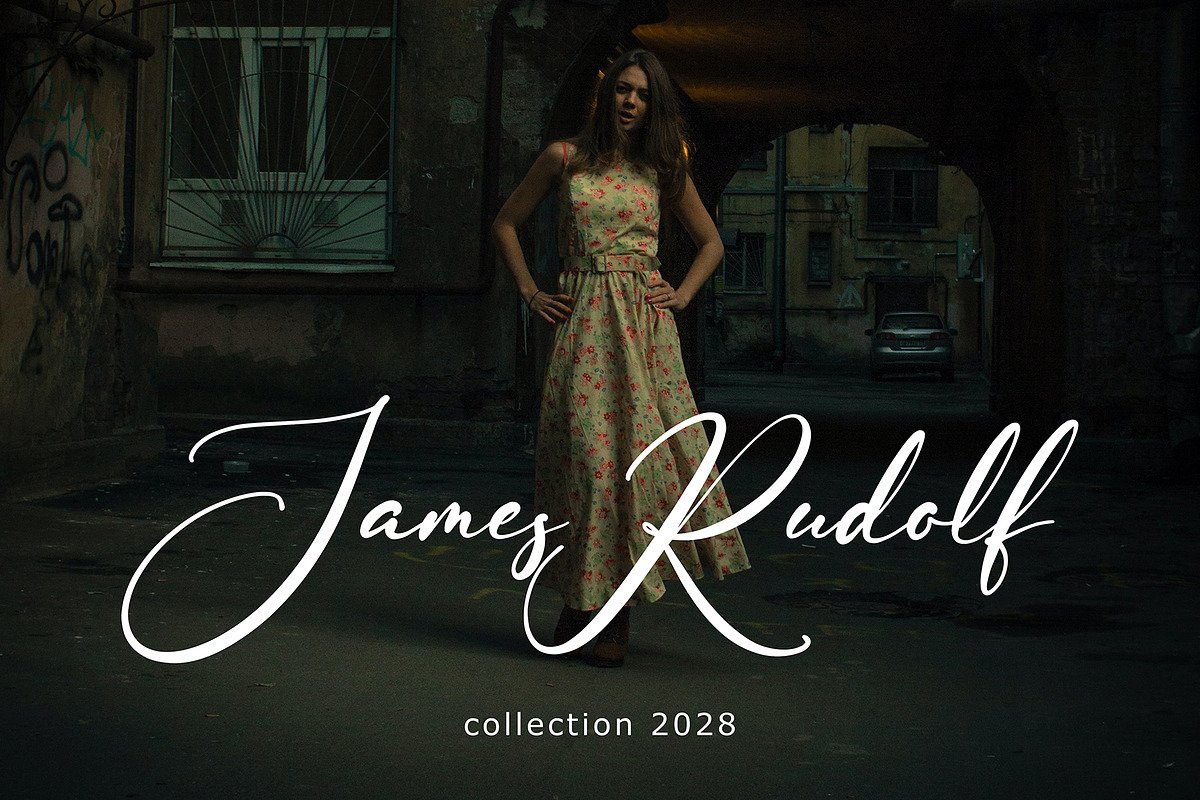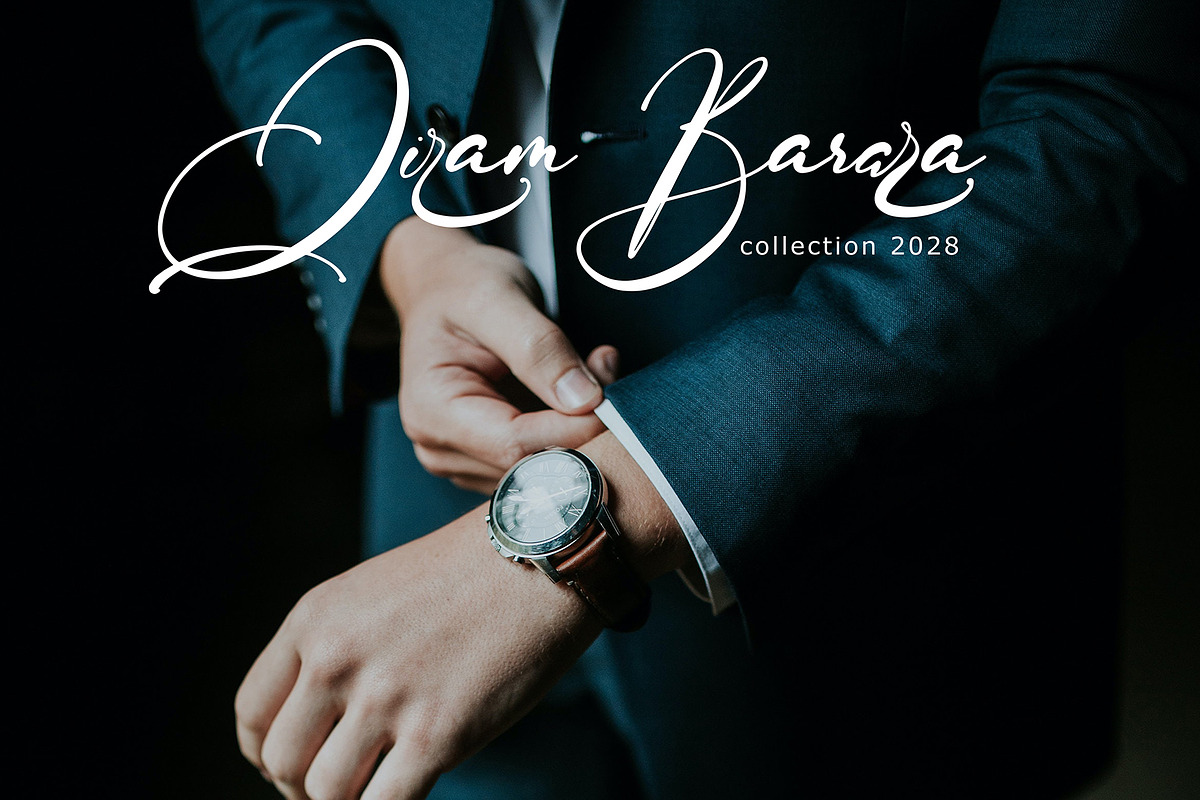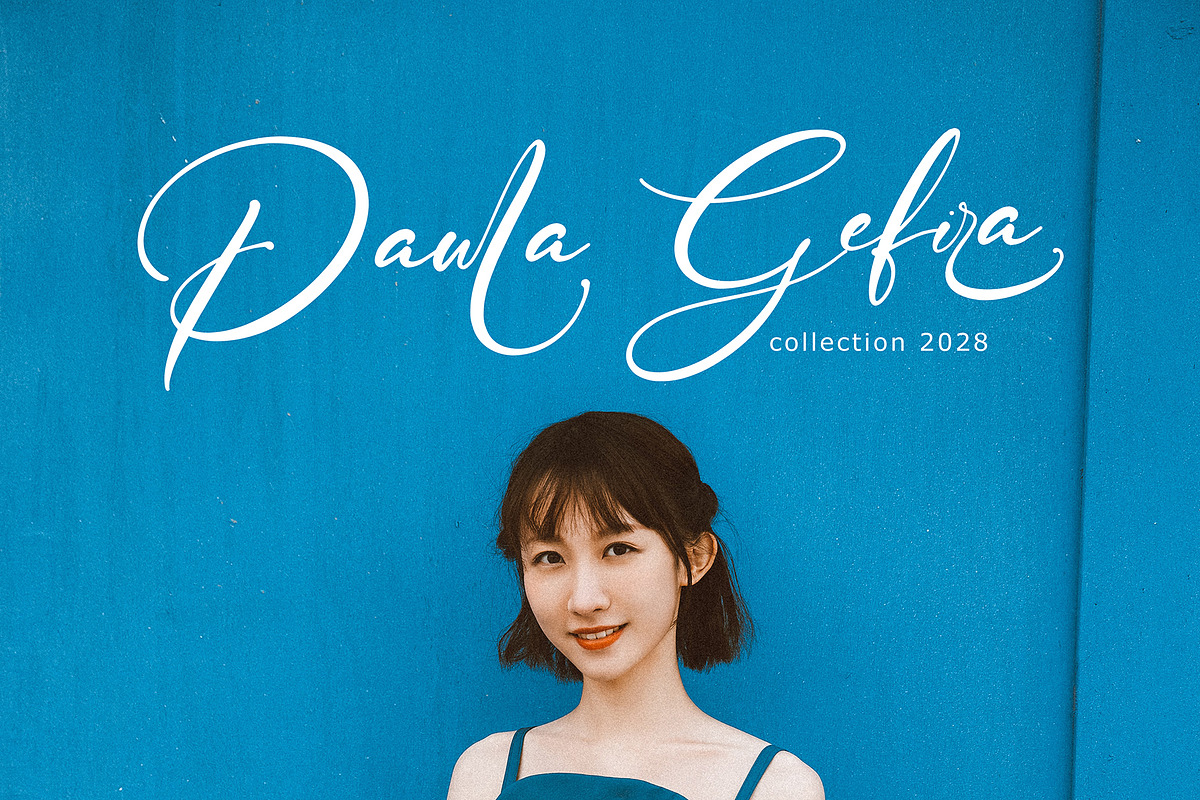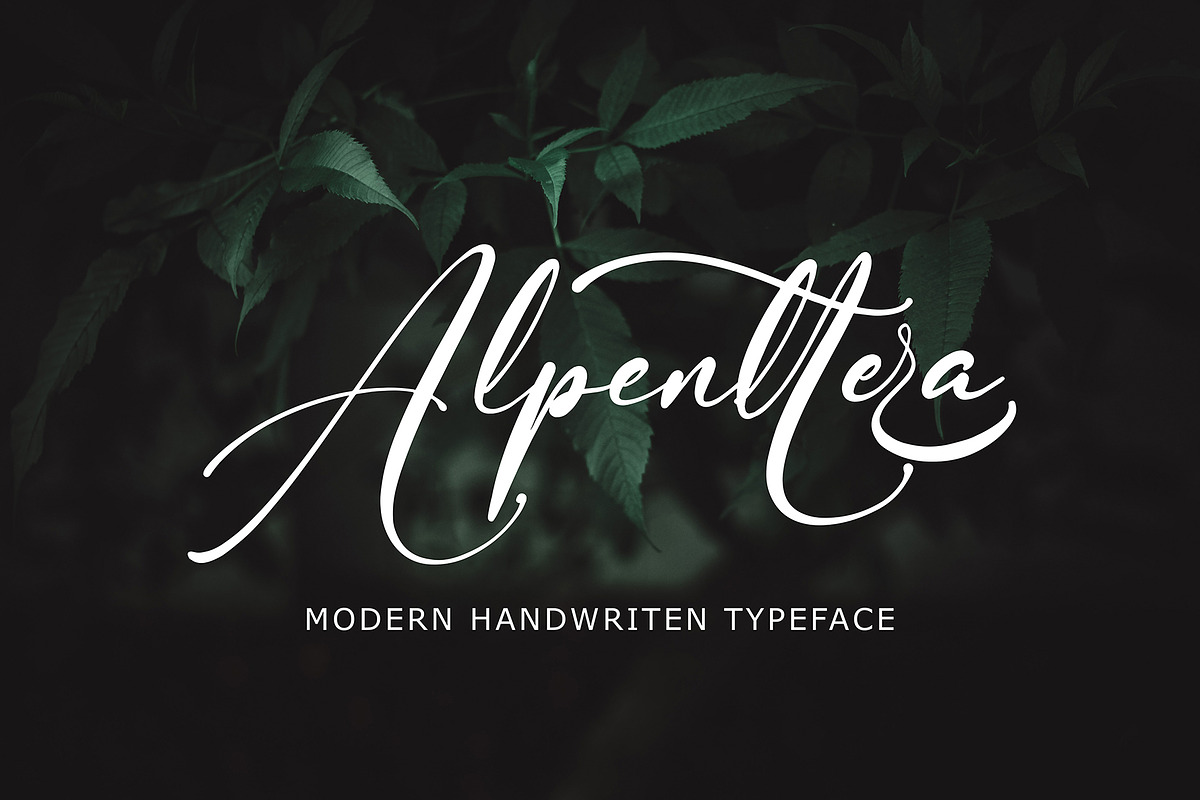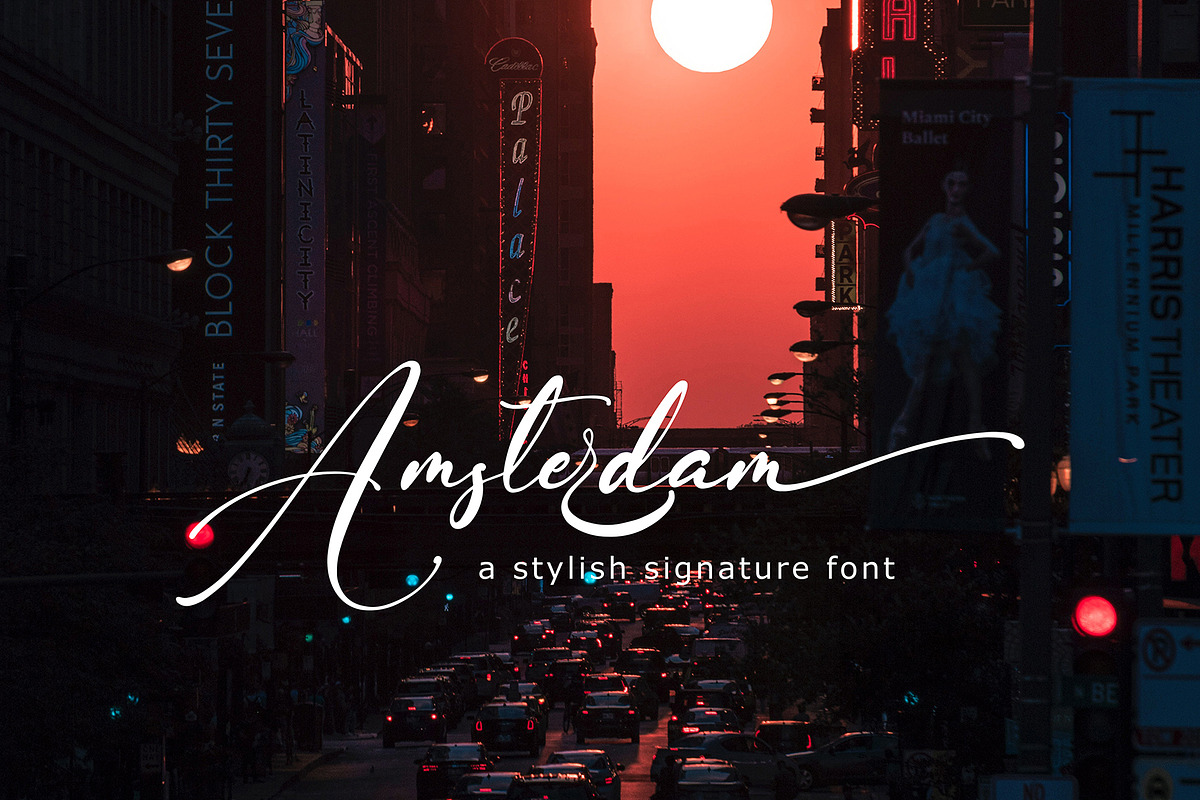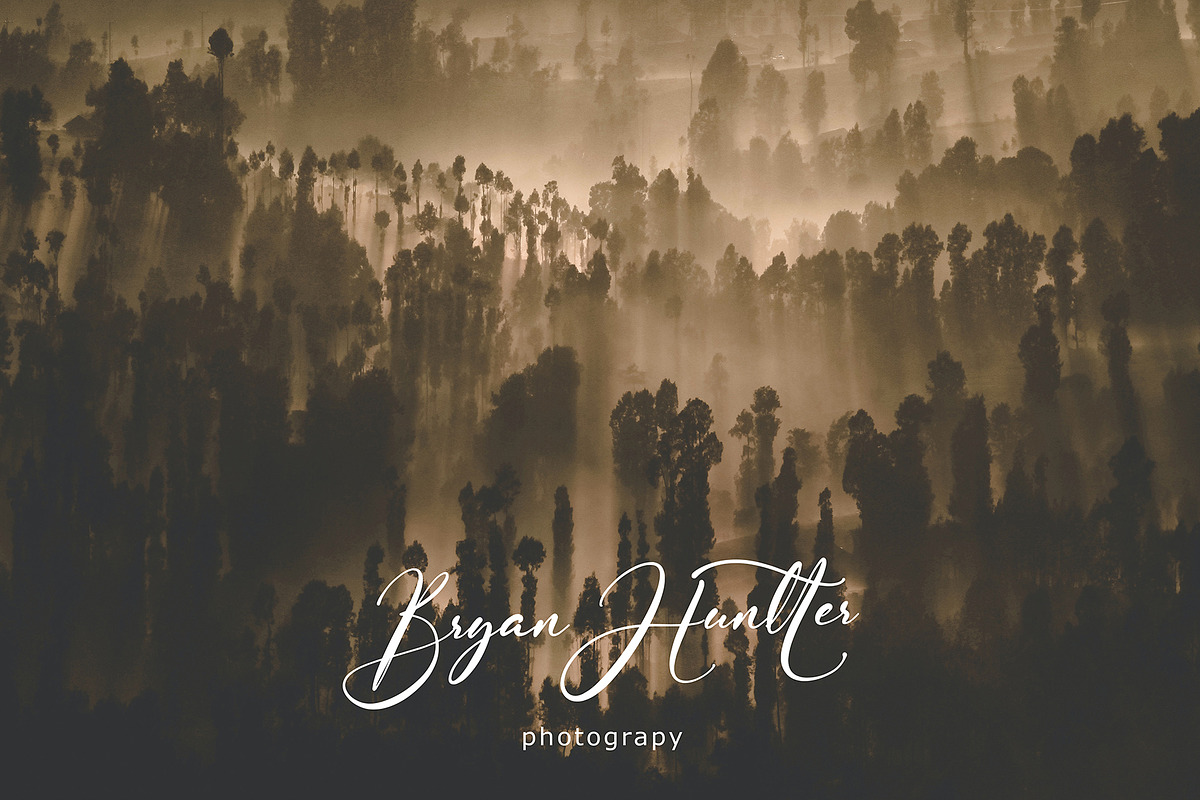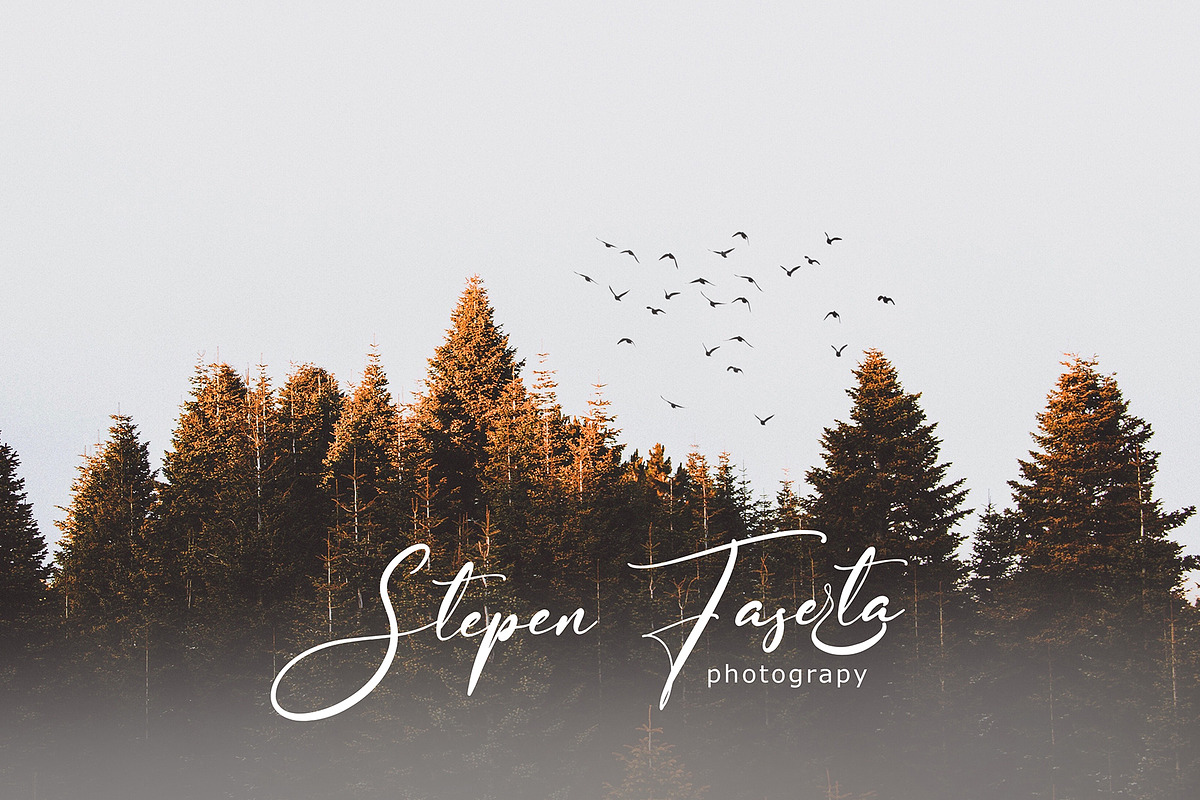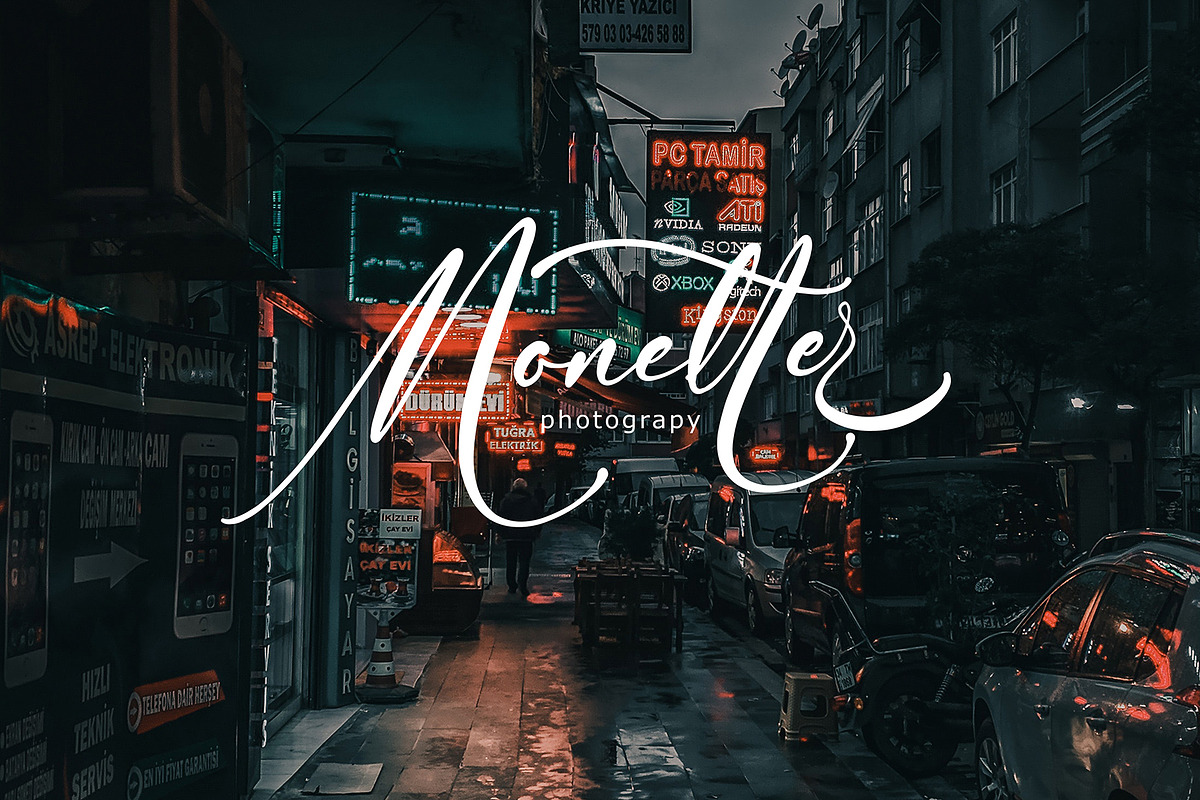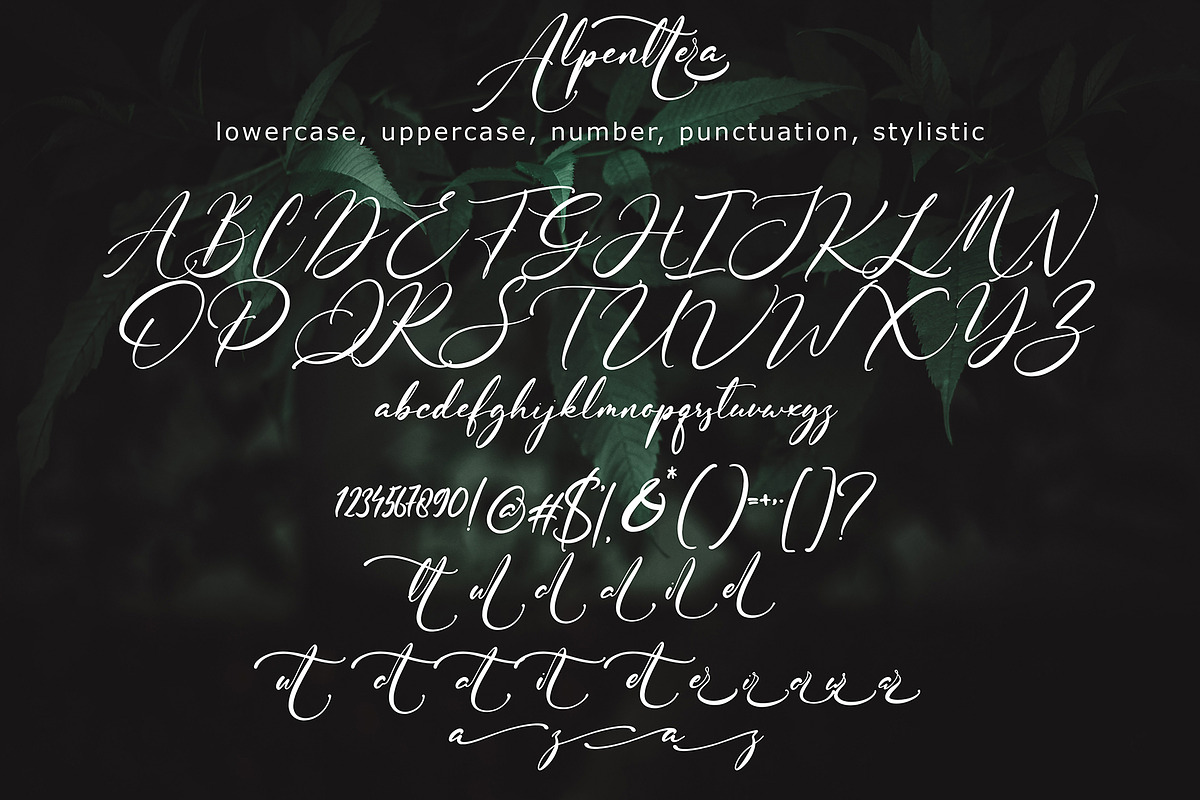
Alpenttera
Alpenttera font with new style, this font will perfect for many different project ex: quotes, logo, blog header, poster, banding, letter, invitation, stationery, etc...